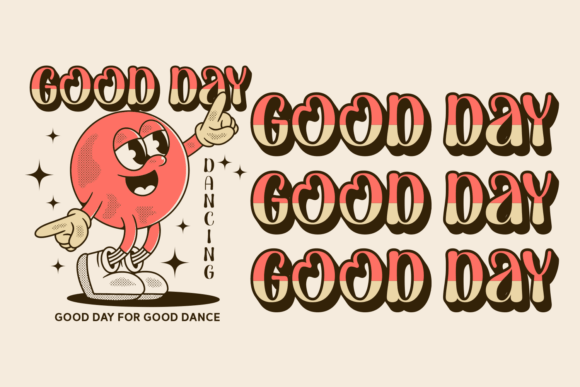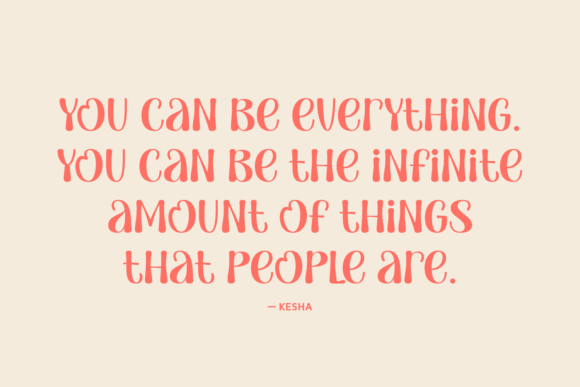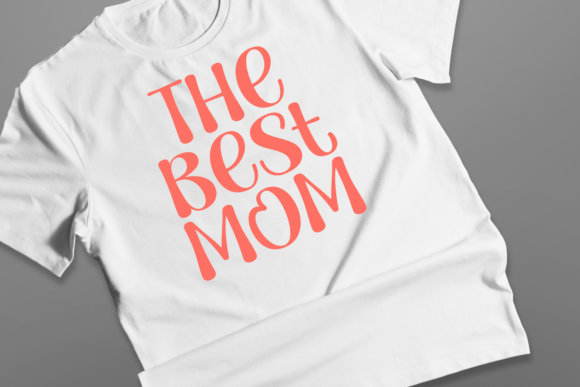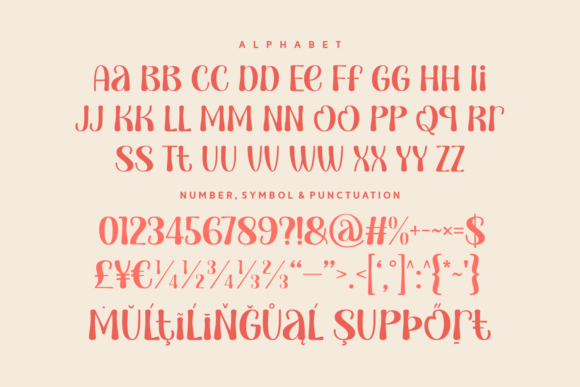
Discover the Charm of “Best Retro”: The Ultimate Display Font for Your Creative Projects
Are you looking for a font that can add a touch of nostalgia and playfulness to your designs? Look no further than “Best Retro,” a display font style that embodies the groovy vibes and sweetness of the past. This carefully crafted font is perfect for designers and crafters who want to create authentic and eye-catching designs that stand out from the crowd.
The Characteristics of “Best Retro”
“Best Retro” is a versatile font that boasts a clean appearance, making it an ideal match for a wide range of design projects. Its round, smooth edges and graceful swashes give it a unique and charming personality that is sure to capture the hearts of designers and audiences alike. Whether you’re creating apparel, book covers, greeting cards, or logotypes, this font is sure to accent your designs with its distinctive style.
One of the best things about “Best Retro” is its versatility. This font can be used for a variety of design projects, including:
- Apparel: Create stunning T-shirt prints, hoodies, and other apparel items that are sure to turn heads.
- Book Covers: Add a touch of nostalgia and sophistication to your book covers with this beautiful font.
- Greeting Cards: Create heartfelt and personalized greeting cards for special occasions.
- Logotypes: Use “Best Retro” to create unique and memorable logos for your brand or business.
- Magazine Layouts: Add a touch of retro charm to your magazine layouts and make them stand out from the crowd.
- Packaging Designs: Create eye-catching packaging designs that showcase your brand’s personality.
- Artistic Quotes: Use “Best Retro” to create inspiring and visually appealing quotes for social media or print.
Multilingual Support
“Best Retro” is not just limited to English language inputs. This font supports multilingual inputs, including Eastern European languages, making it a great choice for designers who work with clients from diverse linguistic backgrounds.
Why Choose “Best Retro”?
So, why should you choose “Best Retro” for your design projects? Here are just a few reasons:
- Unique Style: “Best Retro” has a distinctive style that sets it apart from other fonts.
- Versatility: This font can be used for a wide range of design projects, from apparel to book covers.
- Easy to Read: Despite its retro charm, “Best Retro” is easy to read and understand.
- Multilingual Support: This font supports multilingual inputs, making it a great choice for designers who work with clients from diverse linguistic backgrounds.
If you’re looking for a font that can add a touch of nostalgia and playfulness to your designs, “Best Retro” is the perfect choice. With its unique style, versatility, and multilingual support, this font is sure to become a staple in your design toolkit. So, fall in love with “Best Retro” and let it enhance your designs with its groovy vibes and sweetness. Experience a taste of yesteryears in each brush stroke with “Best Retro.”